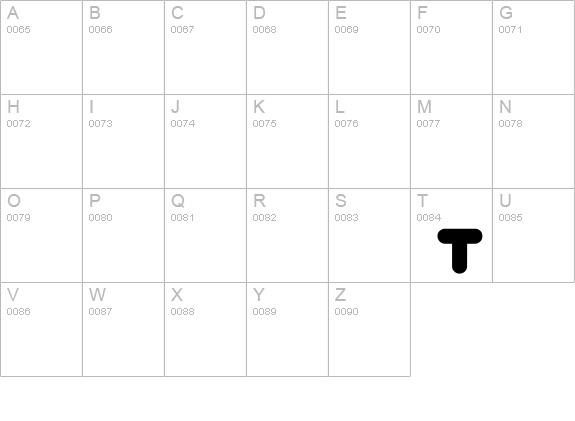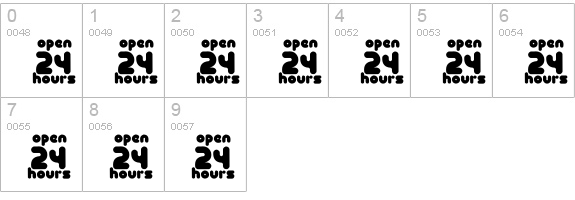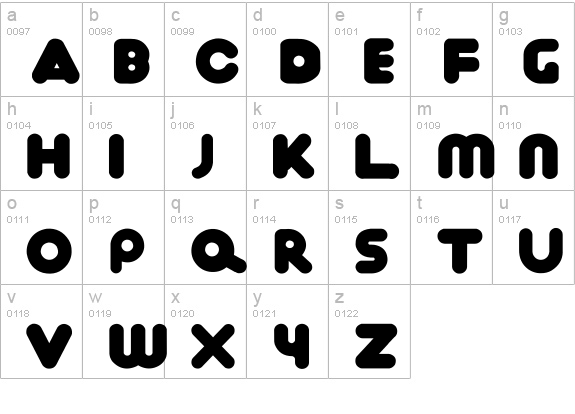
Ihop Font Details
Introducing Ihop font, a delightful typeface that will add a touch of whimsy to any project. This charming font exudes a sense of playfulness, perfect for capturing attention and creating memorable designs. Ihop font is versatile and can be used for various purposes such as branding, packaging, invitations, and more. What sets Ihop font apart is its unique combination of elegance and casualness. The fluid strokes and gentle curves give this font a graceful appearance, while the slightly irregular letterforms add a touch of informality. It strikes a perfect balance between sophistication and approachability, making it a standout choice for both professional and personal projects. What's even better is that Ihop font is freely available to download at FontsMarket.com. Yes, you read that right! You can easily access this incredible font without any cost, allowing you to unleash your creativity without breaking the bank. With just a few clicks, you can bring Ihop font to life on your computer, ready to be utilized in your design endeavors. Whether you're a seasoned designer or a creative enthusiast, Ihop font offers endless possibilities. Its extensive character set supports multiple languages, ensuring that your message can be conveyed accurately to a global audience. The smooth and legible letterforms make readability a breeze, ensuring that your words are effortlessly communicated. With Ihop font, you can elevate your designs to new heights. Imagine eye-catching headlines, captivating logos, and beautiful typography that will leave a lasting impression on your audience. This font invites you to explore the boundaries of design, encouraging experimentation and innovation. So, what are you waiting for? Don't miss out on the opportunity to add Ihop font to your collection. Visit FontsMarket.com today and embark on a journey of creativity. With this free font at your fingertips, the possibilities are endless. Unleash your imagination and let Ihop font be the catalyst for your next design masterpiece.